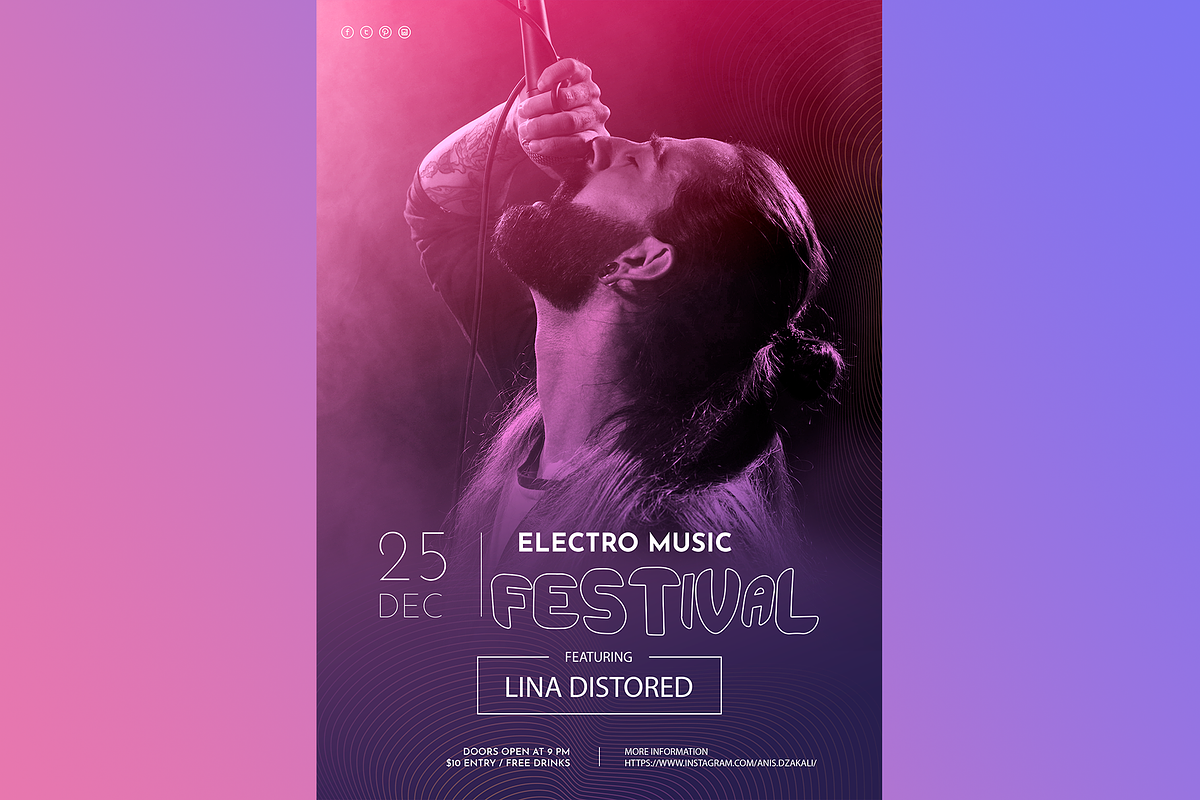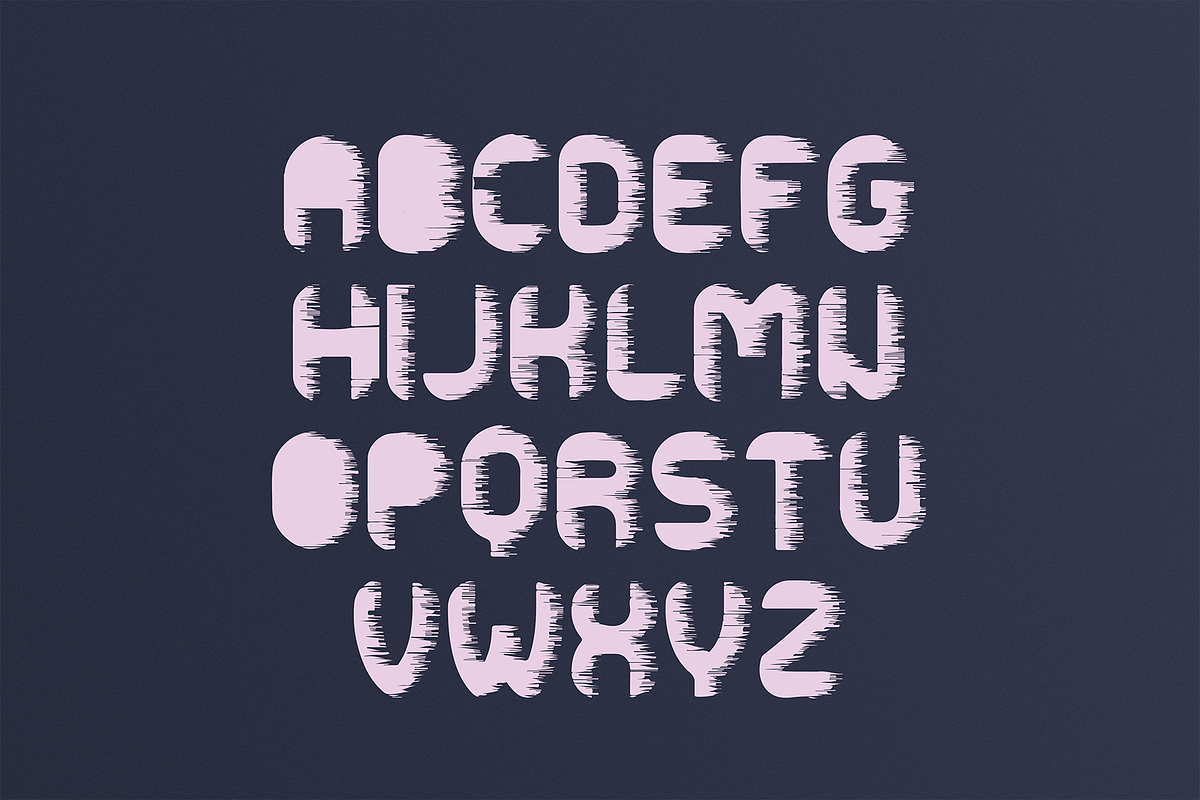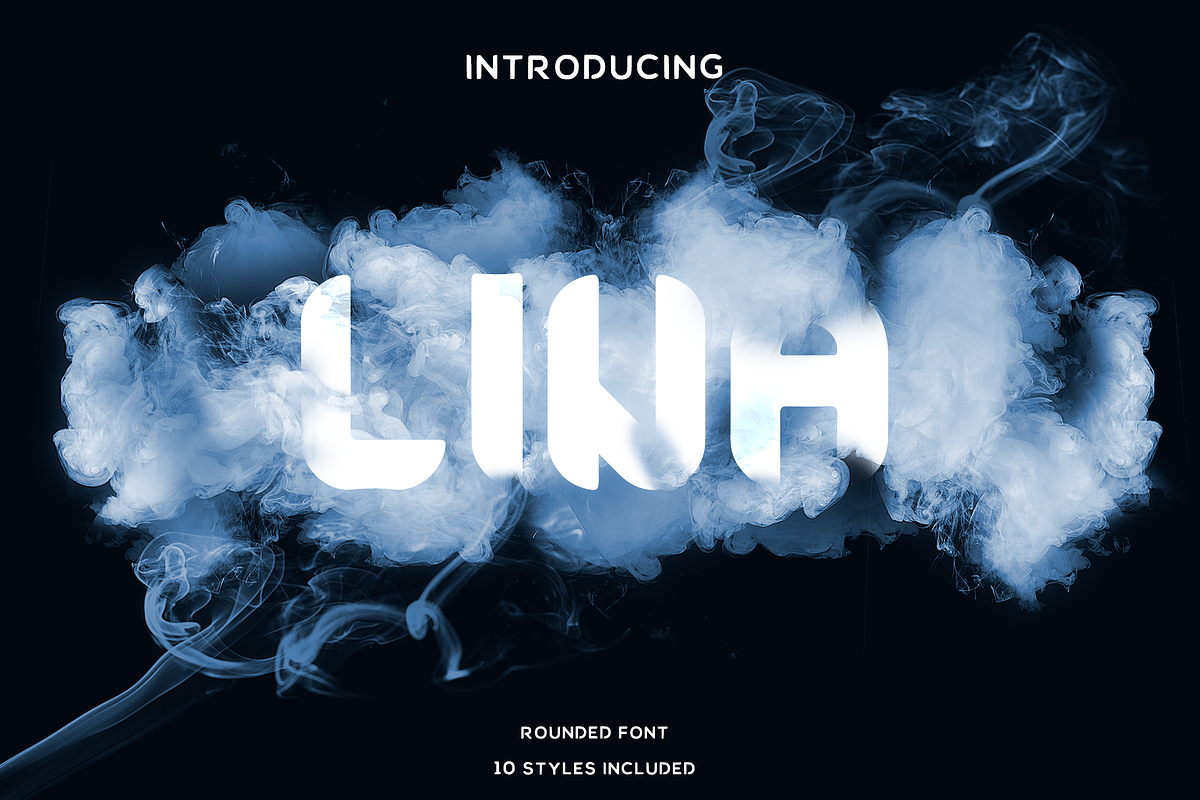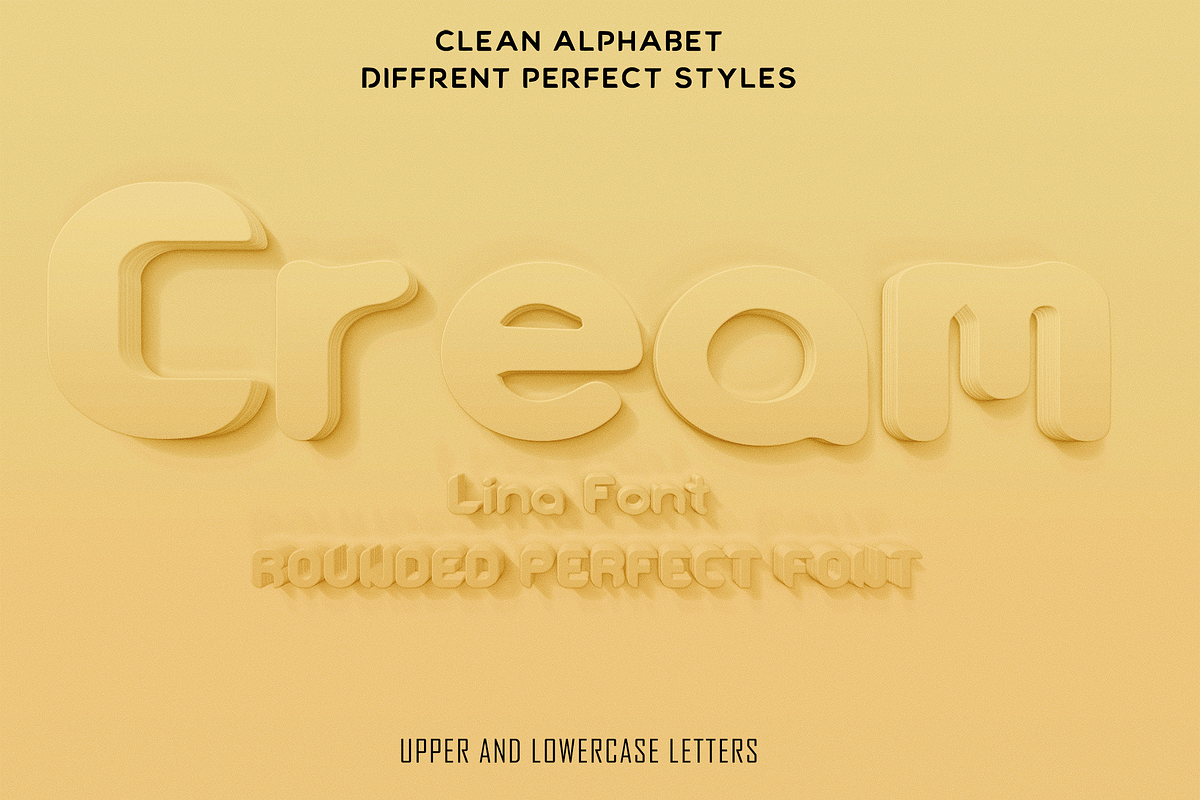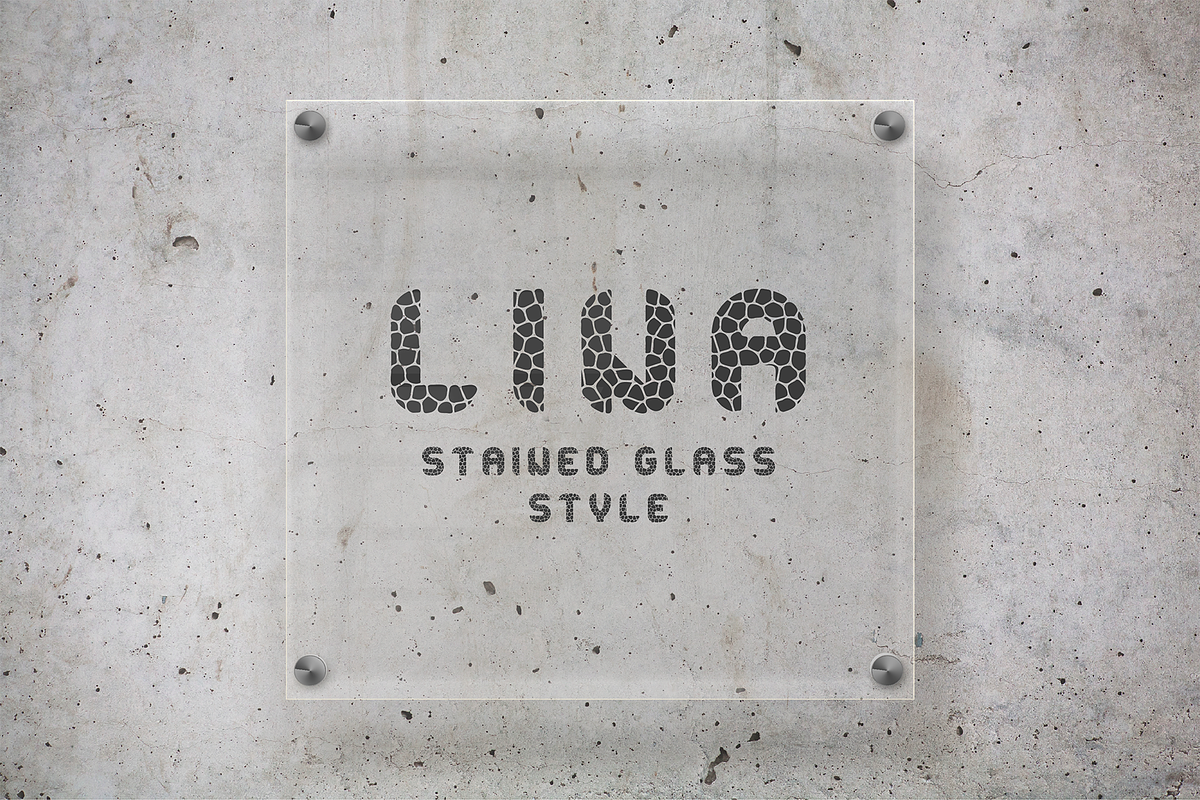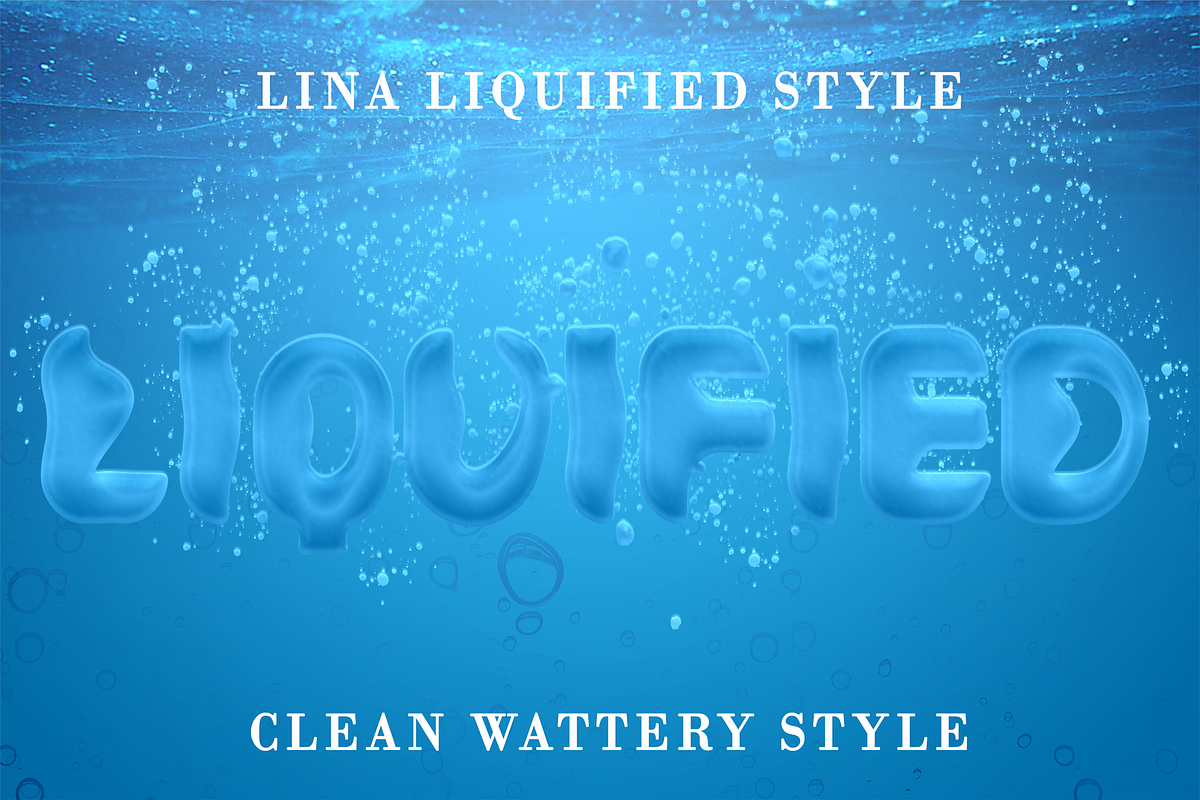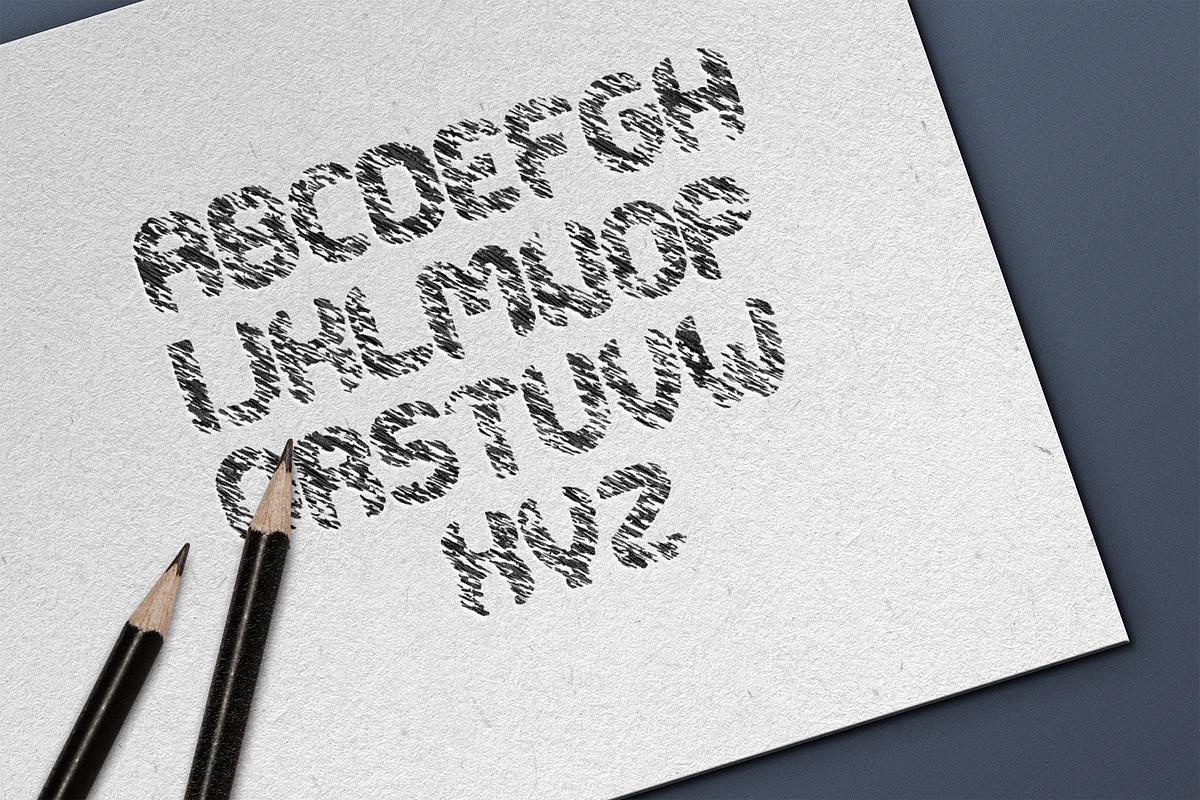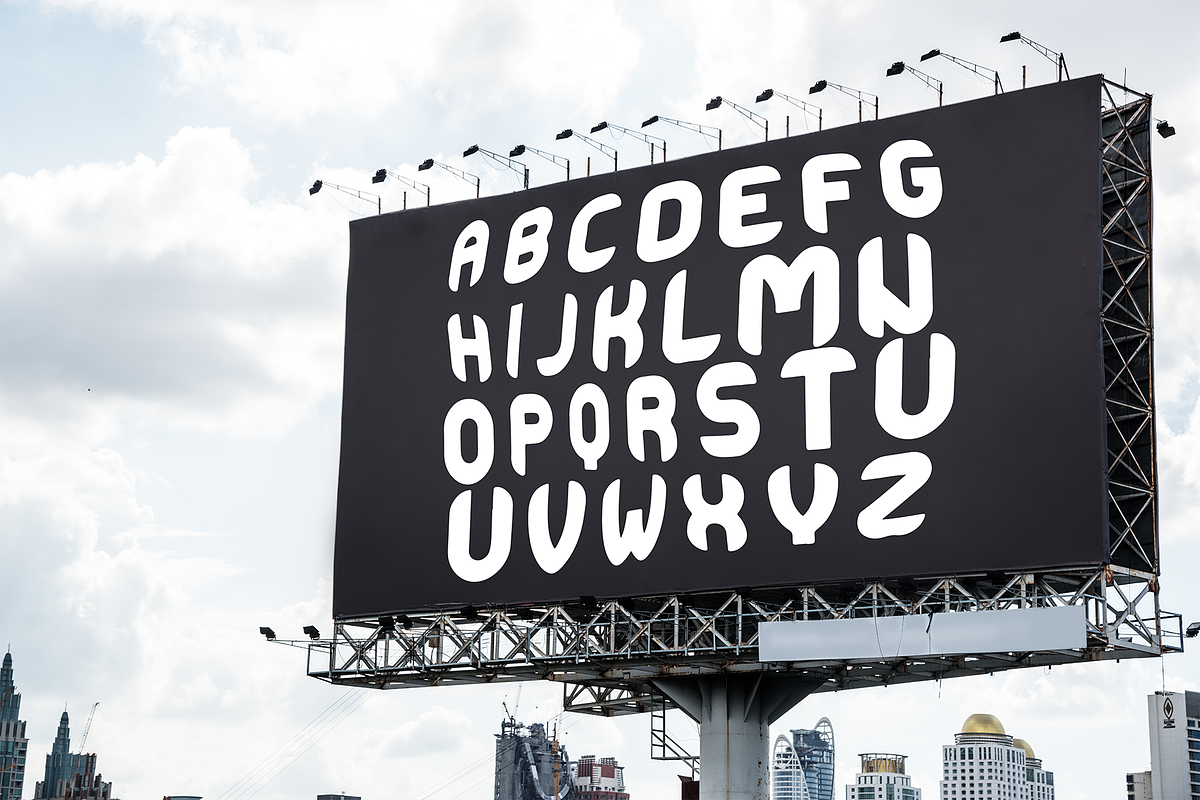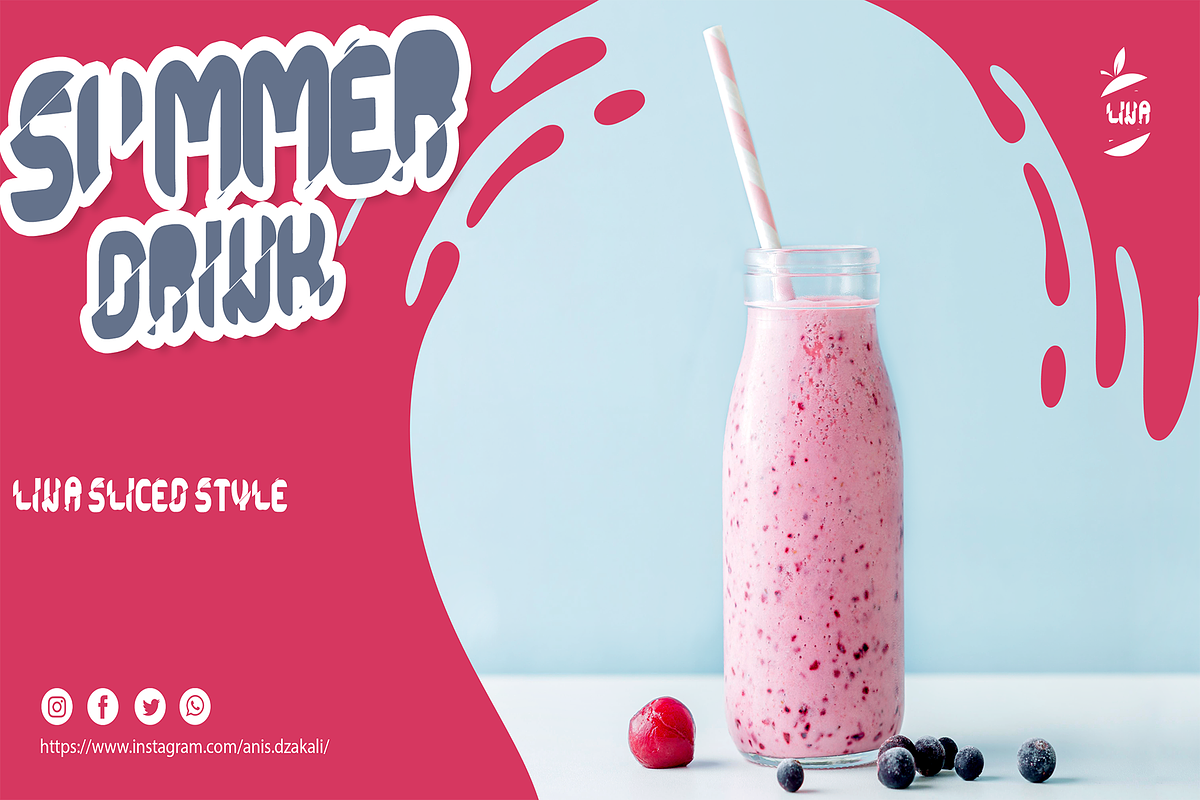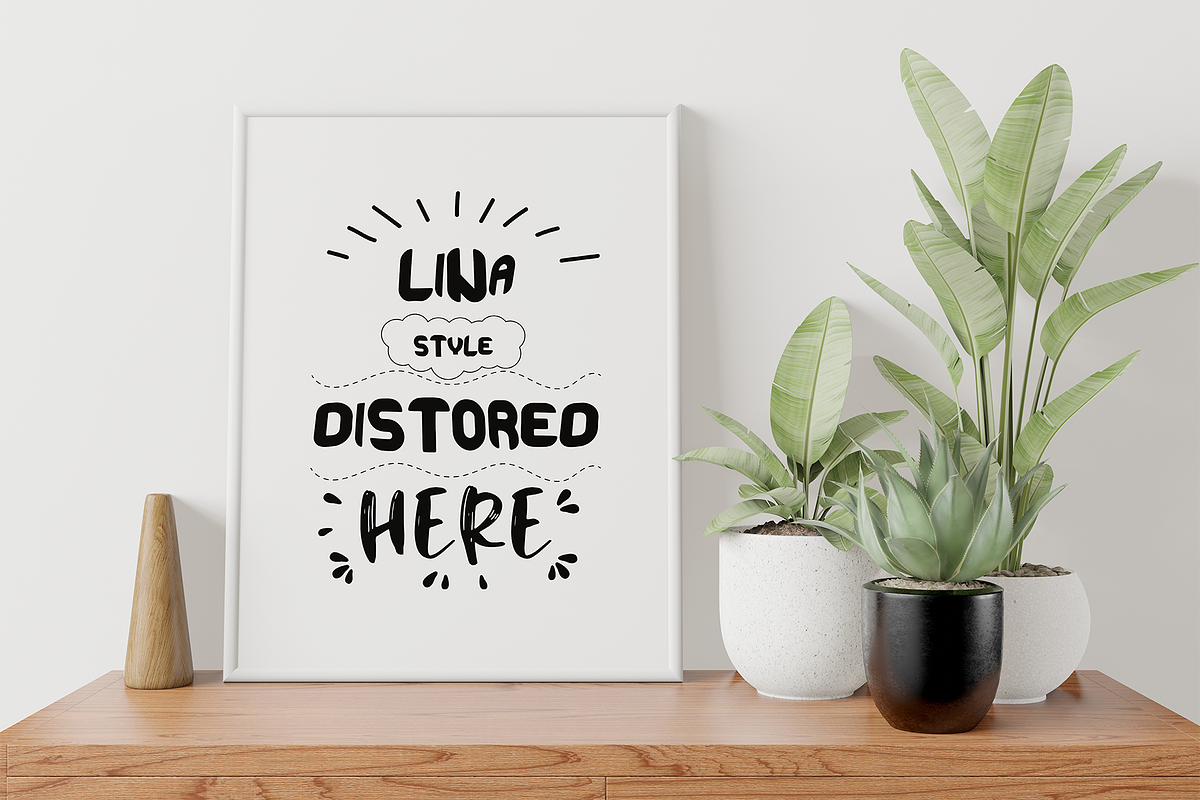
LINA
LINA is a chic and distinct Rounded display font. with 10 styles :
- REGULAR : all upper and lower case letters + punc
- BOLD -ITALIC -STAINED GLASS -WINDY -SLICED -EMBOSS -DISTORED -GRAPHITE -LIQUIFIED perfectly crafted , pixel perfect angulations , awsome custome styles and effects No matter the topic, this font will be an incredibly asset to your fonts’ library, as it has the potential to elevate any creation.